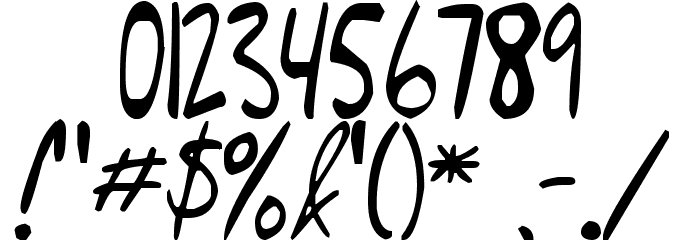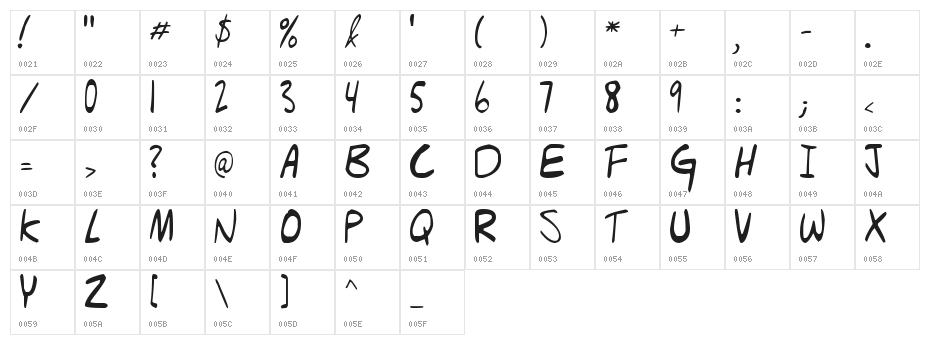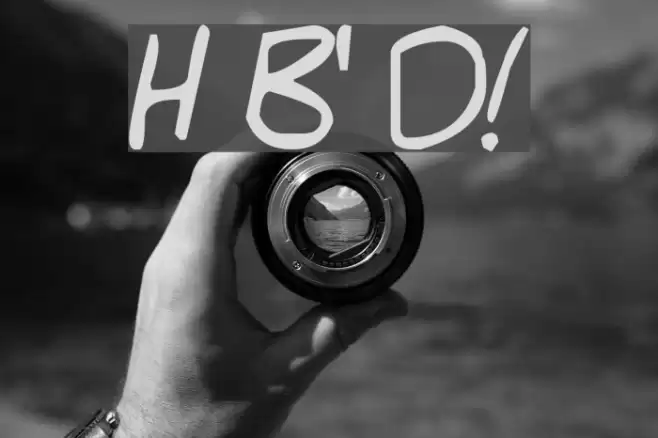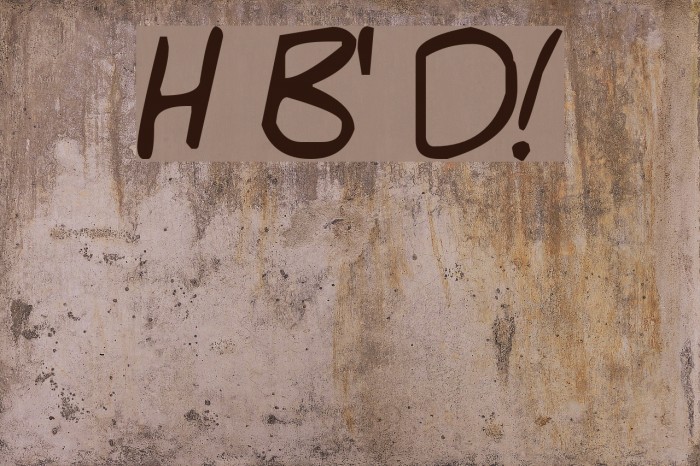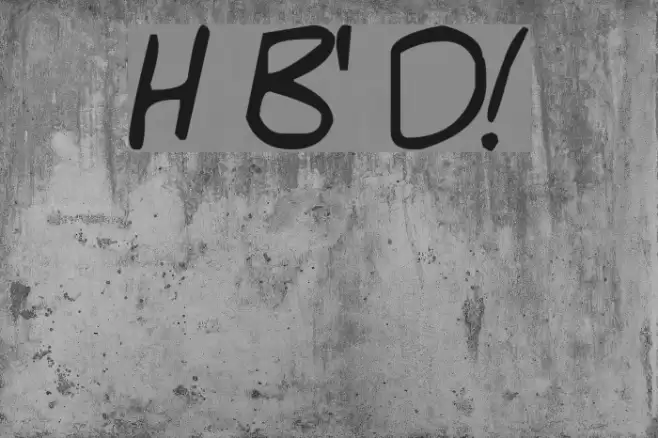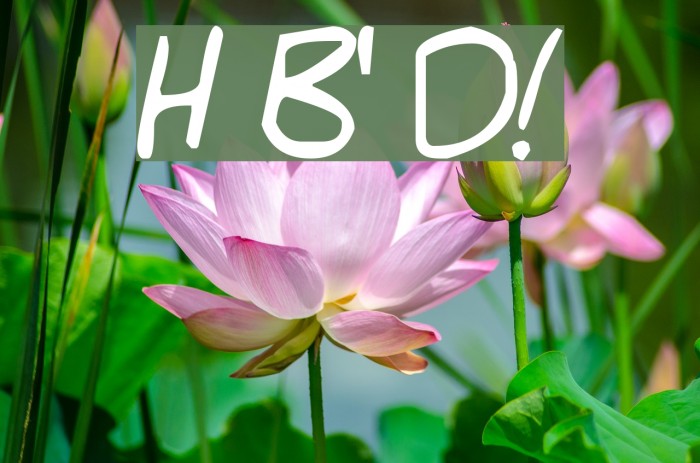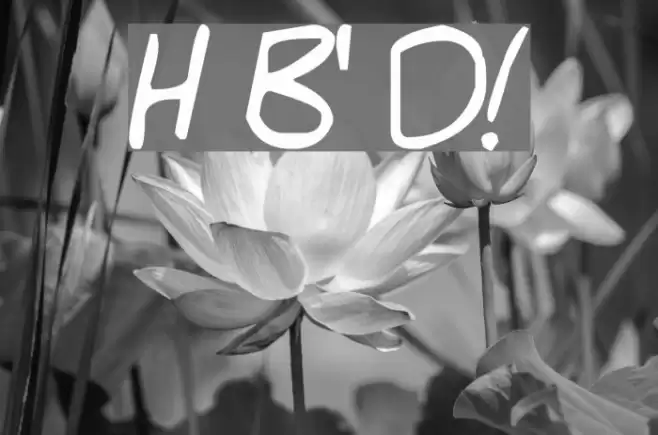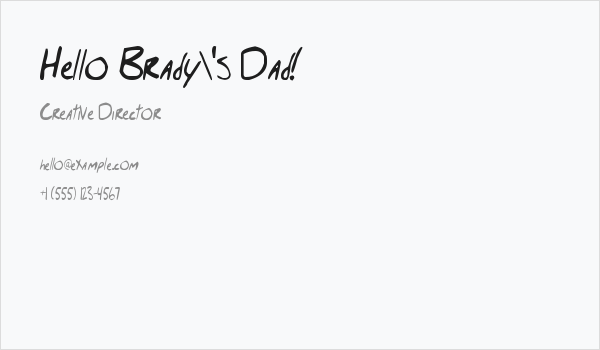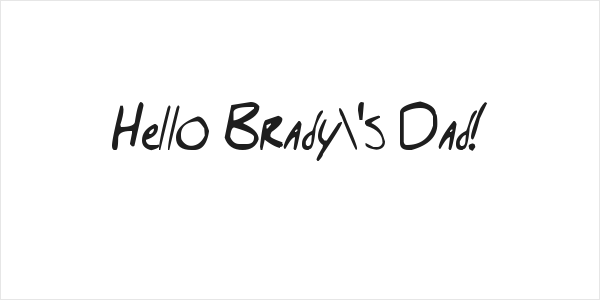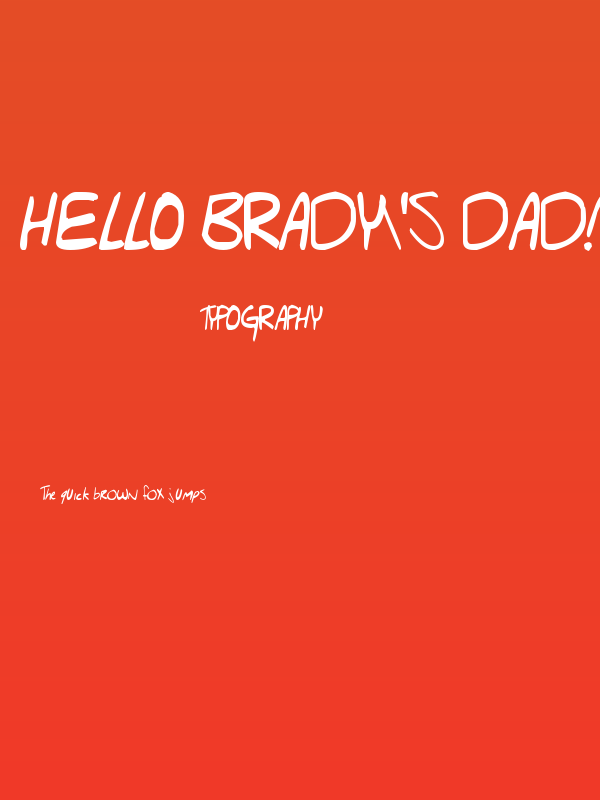
Hello Brady's Dad! Font
Hello Brady's Dad! Description
This font features a playful and energetic handwritten style, characterized by its bold and slightly irregular strokes. The letters have a casual and informal appearance, with varying angles and a dynamic flow that adds a sense of movement. The uppercase and lowercase letters maintain a consistent style, while the numbers and special characters blend seamlessly with the overall design. The font's unique personality makes it stand out, offering a friendly and approachable vibe.